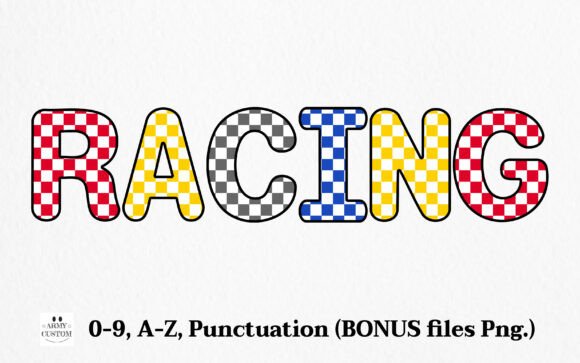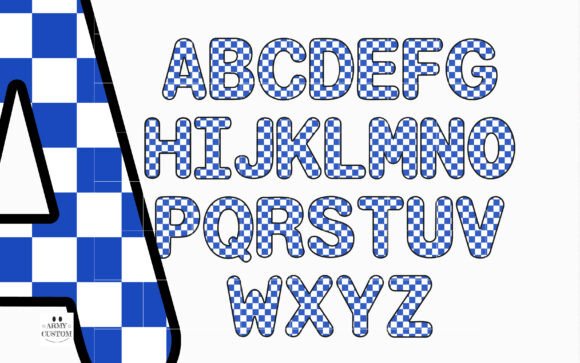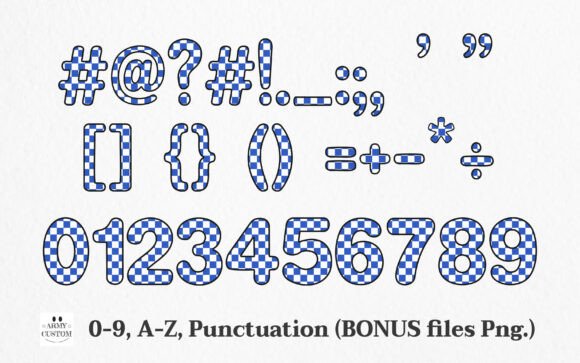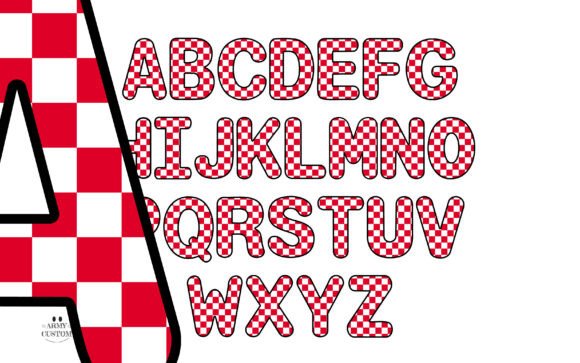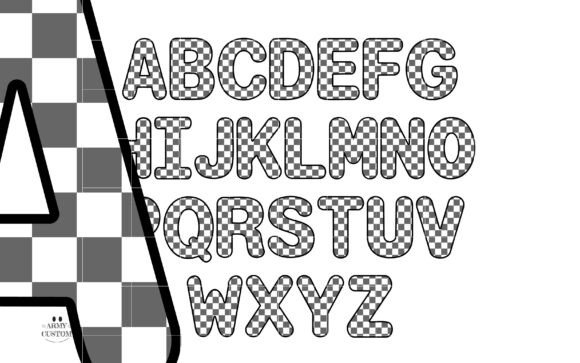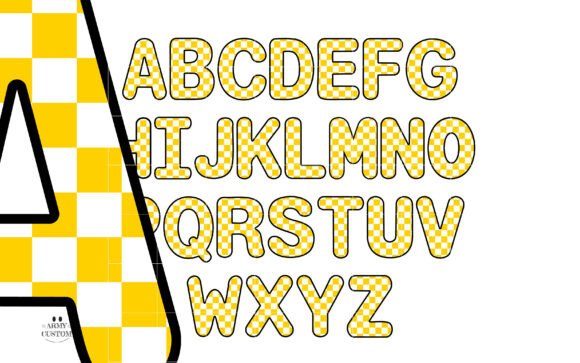
The Thrill of the Design Track
Imagine you’re standing at the starting line of a design sprint, the adrenaline coursing through your veins as you prepare to unleash your creativity. The engine roars to life, and you hit the gas – the Am Racing Font is revving up your designs with its bold, chunky letters and rally-flag-inspired checkered motif.
Designed to deliver an adrenaline rush of style, the Am Racing Font is the perfect companion for designers looking to add a touch of excitement to their work. With its versatility and edgy charm, this typeface is a valuable asset for any design project, from sports-themed branding to high-energy marketing campaigns.
Whether you’re a seasoned pro or just starting out, the Am Racing Font is sure to put the pedal to the metal and help you create designs that leave a lasting impression.
Am Racing Font Key Features
- Font Family: Am Racing Font is a custom-designed font family, created specifically for racing and motorsport applications.
- Unique Characteristics: The font features a bold, dynamic, and modern design, with unique letterforms and subtle nuances that evoke a sense of speed and energy.
Am Racing Font Review
Overall, I have mixed feelings about the Am Racing Font. On one hand, there are some aspects that I really like, while on the other hand, there are some limitations that prevent it from being a top-tier font.
- The font is highly customizable, allowing designers to tweak various settings to achieve the desired look.
- The font is designed specifically for racing and automotive themes, making it a great choice for clients in that niche.
- The font is available in a range of weights, from light to bold, giving designers flexibility in their designs.
- The font may not be suitable for general use, as it is highly stylized and may not be easily legible in certain contexts.
- The font is not as versatile as some other fonts, limiting its use in a wide range of design projects.
- The font’s unique design may not appeal to all designers or clients, which could limit its adoption.
Overall, the Am Racing Font is a solid choice for designers working in the racing and automotive niches. While it has its limitations, it is a highly customizable and versatile font that can add a unique touch to designs. However, it may not be the best choice for general use or designers looking for a more universal font.
Am Racing Font is ideal for use in sports-themed designs, such as car racing or sports team logos.
To get the most out of Am Racing Font, use it in bold and large font sizes to create a dramatic effect.